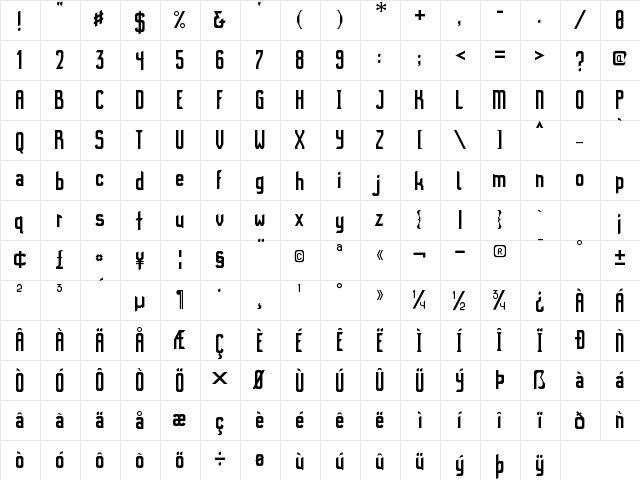
WebFont Regular
| Designer | Doug Peters |
Design Context for WebFont Typeface
WebFont is a composed and adaptable typeface that performs quietly and consistently across a wide range of design contexts.